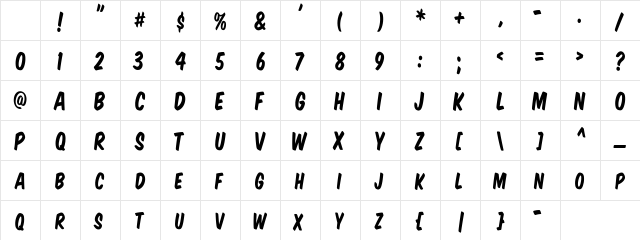
Complete VTCSuperMarketSaleSC SmallCaps glyph index. Displaying only characters natively supported by VTCSuperMarketSaleSC SmallCaps font.
VTCSuperMarketSaleSC is a composed and adaptable typeface that performs quietly and consistently across a wide range of design contexts.